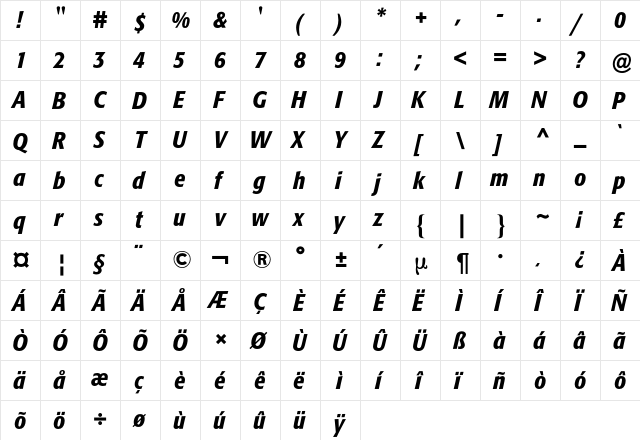
Formata Condensed BQ Regular Font Preview
Formata Condensed BQ Regular
Formata Condensed BQ Regular Font Details
Design Context for Formata Condensed BQ Typeface
Formata Condensed BQ offers clean, dependable letterforms without strong stylistic allegiance, making it a practical choice for designers who need flexibility. Its narrow stance lets it pack a punch even in space-constrained designs.